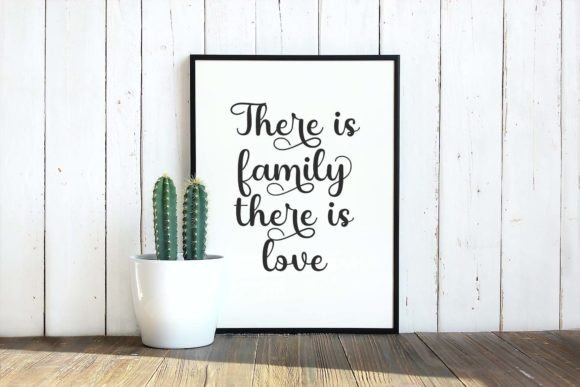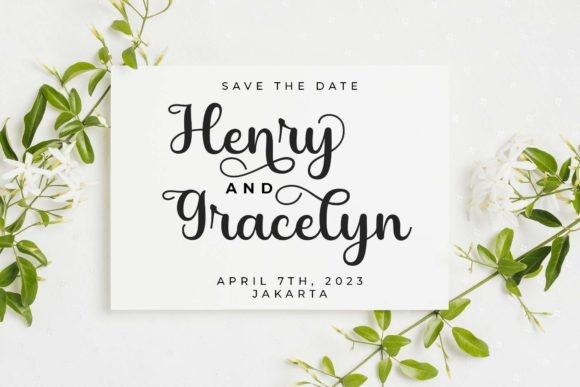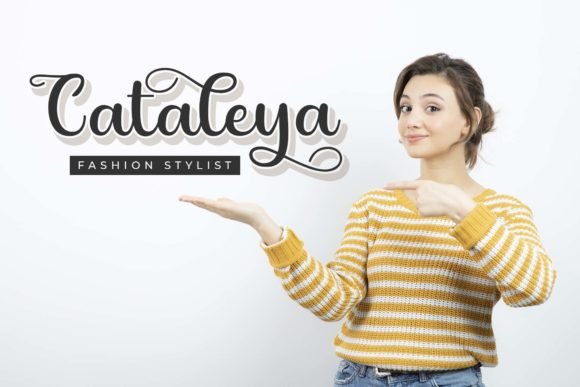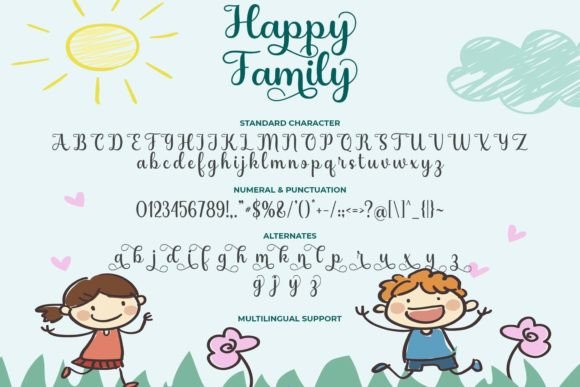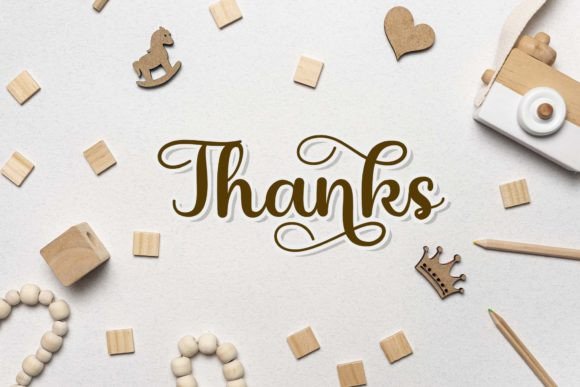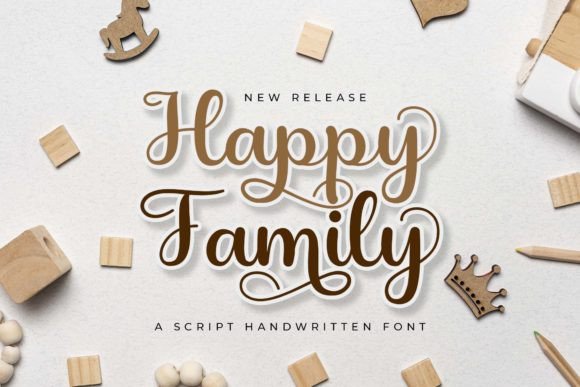
Introducing Happy Family Font: The Epitome of Elegance and Sophistication
In the world of typography, a font can make or break the visual appeal of a project. For designers and crafters seeking to infuse their work with a touch of sophistication and elegance, the Happy Family Font is an exceptional choice. This delicate and refined script font is designed to elevate any project, making it a perfect match for those who value style and refinement.
The Characteristics of Happy Family Font
Happy Family Font is a script font that boasts a high level of sophistication. Its delicate strokes and refined lines make it an ideal choice for projects that require a touch of elegance. The font’s stylish alternates provide a range of options, allowing designers to experiment with different looks and feels. Whether you’re working on a branding project, a wedding invitation, or a craft project, Happy Family Font is sure to impress.
One of the standout features of Happy Family Font is its PUA (Private Use Area) encoding. This means that designers can access all glyphs and swashes with ease, giving them complete creative control over their project. With PUA encoding, you can effortlessly navigate the font’s extensive range of characters, ensuring that your design turns out exactly as envisioned.
Perfect for a Range of Projects
The versatility of Happy Family Font makes it suitable for a wide range of projects. Whether you’re a designer working on a client’s branding campaign or a crafter creating handmade cards and invitations, this font is sure to meet your needs. Here are just a few examples of projects where Happy Family Font shines:
- Handmade cards and gift tags
- Digital graphics and social media assets
Why Choose Happy Family Font?
With so many fonts available, why choose Happy Family Font? Here are just a few reasons why designers and crafters love this elegant script font:
- Elegance and sophistication: Happy Family Font exudes refinement and poise, making it perfect for projects that require a touch of luxury.
- Versatility: With its range of stylish alternates and PUA encoding, this font can be used for a wide range of projects and applications.
- Easy to use: Happy Family Font is designed to be user-friendly, making it easy to access and use all glyphs and swashes.
- High-quality design: This font is crafted with attention to detail, ensuring that it looks great in any project.
Tips for Using Happy Family Font
To get the most out of Happy Family Font, here are a few tips to keep in mind:
- Experiment with alternates: Don’t be afraid to try out different alternates to find the perfect look for your project.
- Mix and match with other fonts: Happy Family Font pairs well with a range of other fonts, so feel free to experiment with different combinations.
- Pay attention to spacing: As with any script font, make sure to adjust the spacing to ensure that your text looks elegant and refined.
In conclusion, Happy Family Font is a stunning script font that is sure to elevate any project. With its elegant design, versatile alternates, and PUA encoding, it’s the perfect choice for designers and crafters seeking to add a touch of sophistication to their work. Whether you’re working on a branding campaign, a wedding invitation, or a handmade craft project, Happy Family Font is an excellent choice.